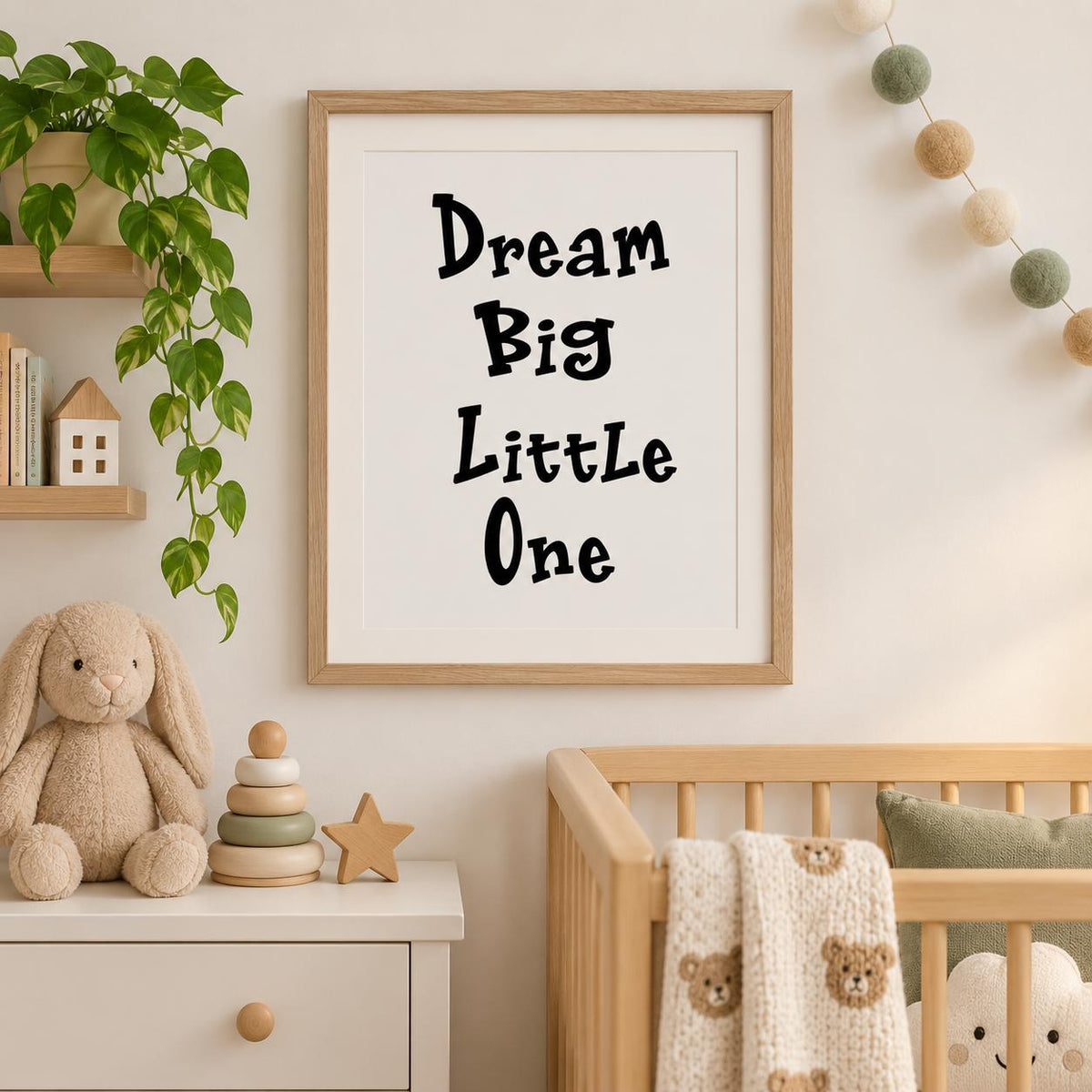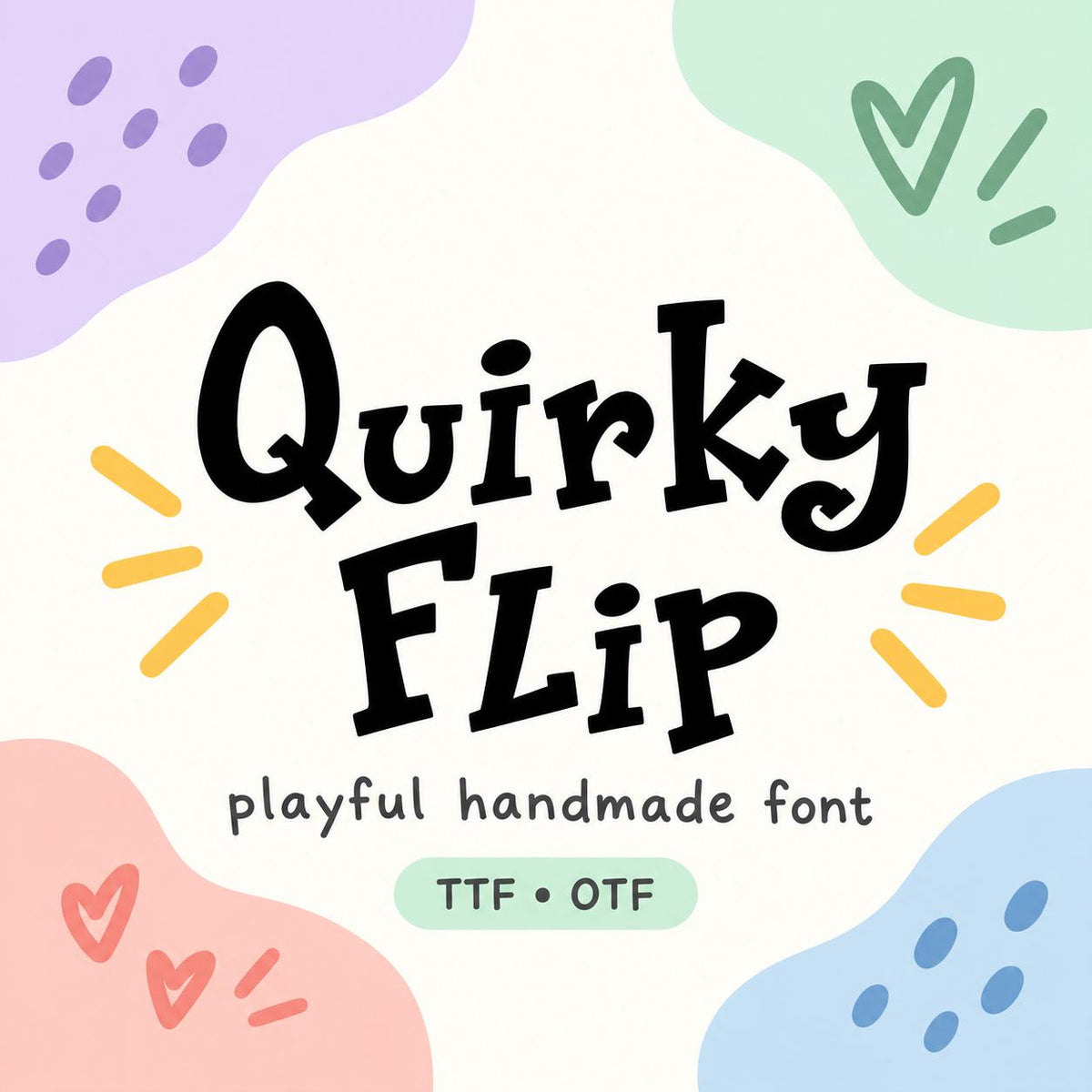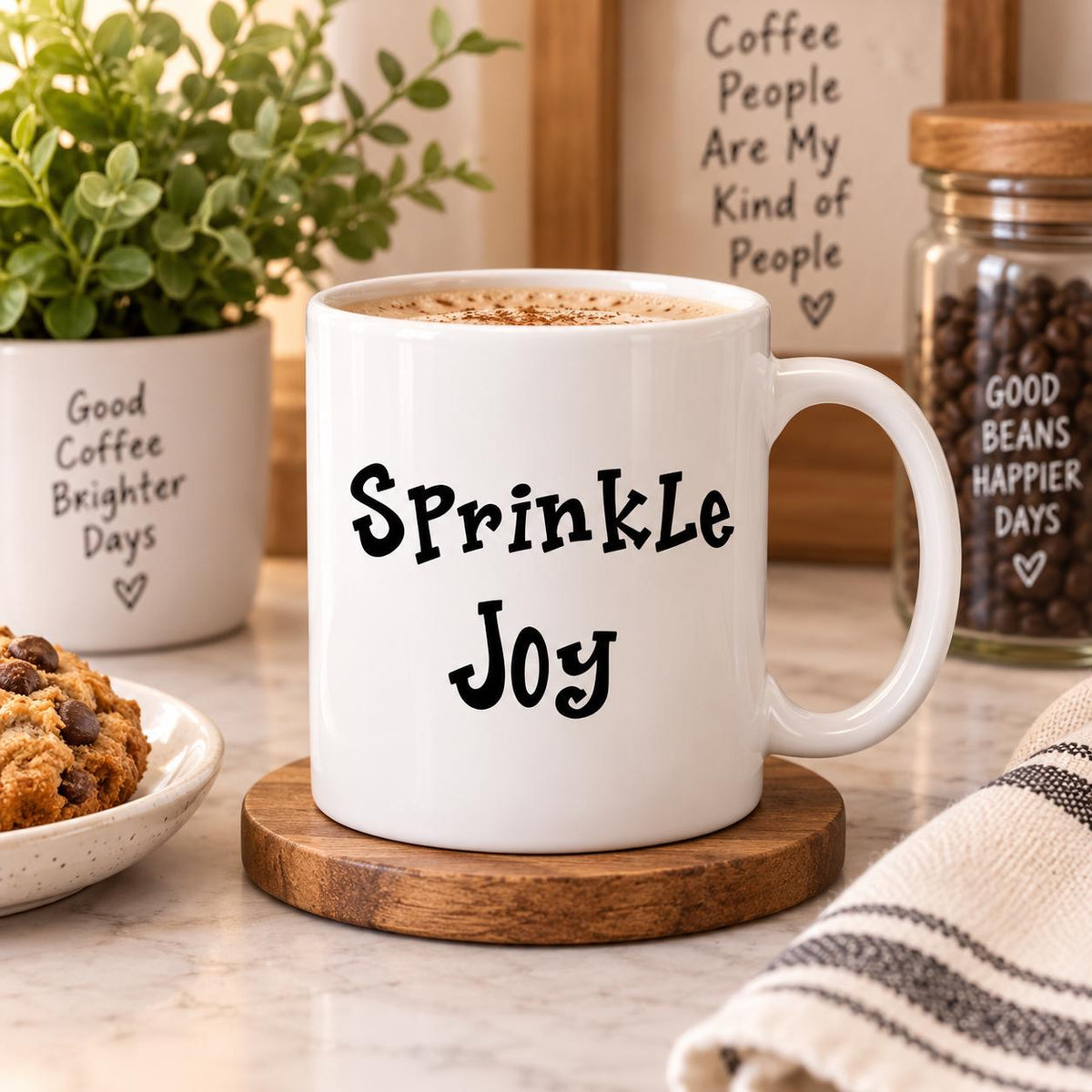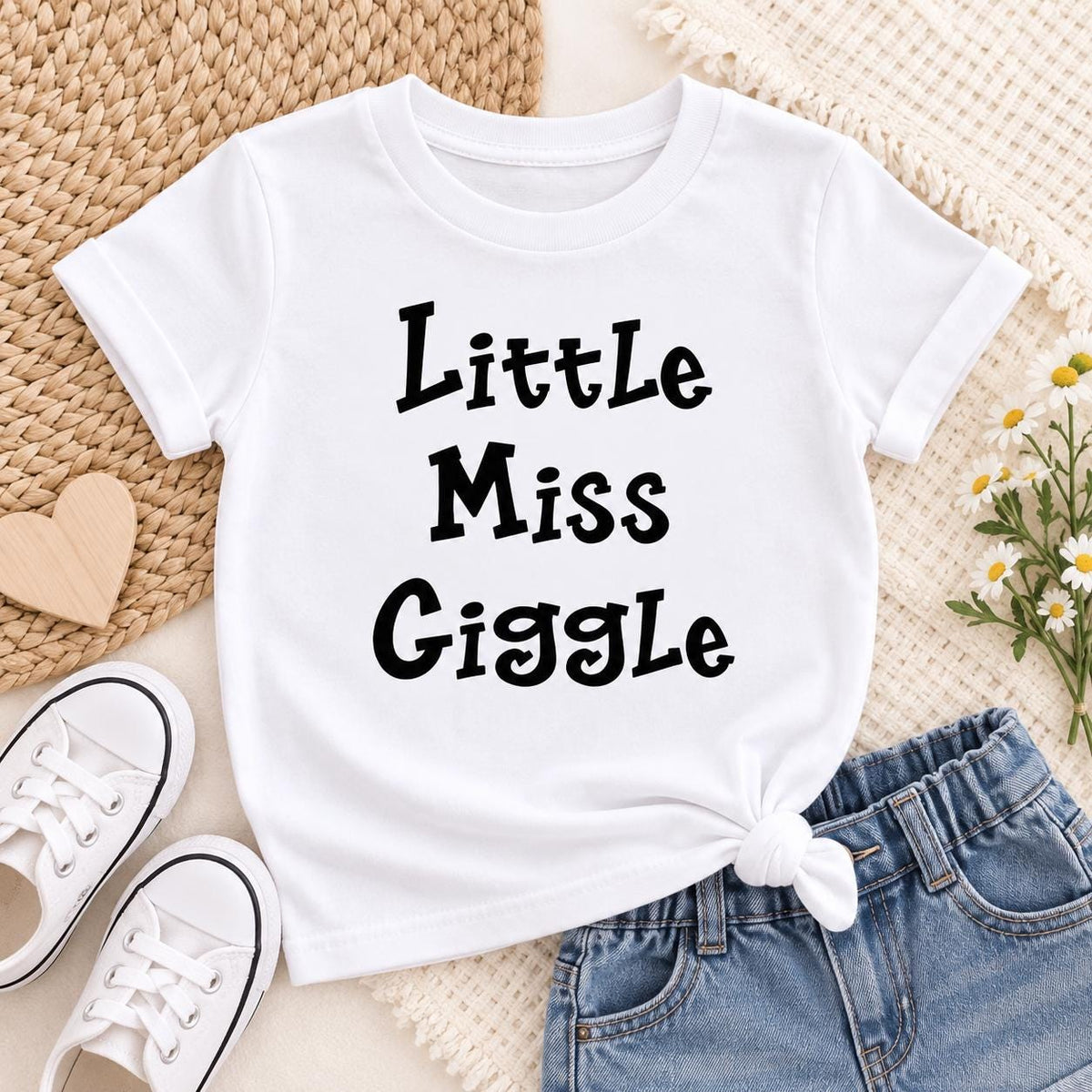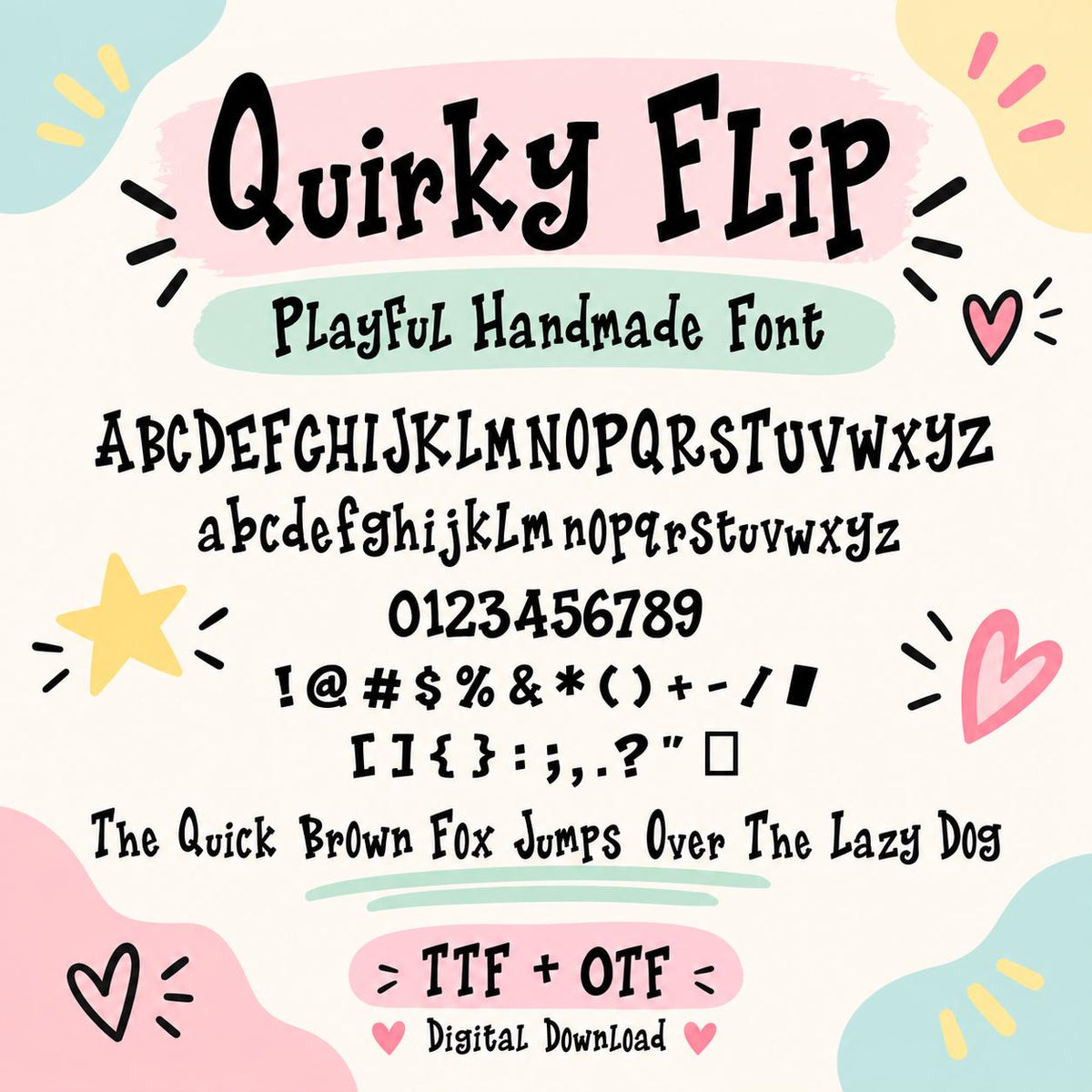
Quirky Step Font TTF OTF | Playful Hand-Drawn Cricut Font
Bring a fun, imperfect handmade vibe to your crafts with Quirky Step — a whimsical display font packed with crooked lines, uneven shapes, quirky curves, and loads of personality. Just install the TTF or OTF file, select Quirky Step in your design program, and start typing names, phrases, and designs your customers will love.
- Full uppercase A–Z & lowercase a–z alphabet
- Numbers 0–9
- Special characters & punctuation
- Original font design by JenCraft Designs